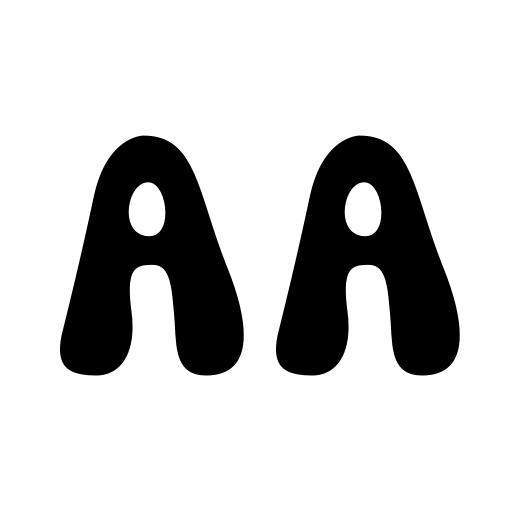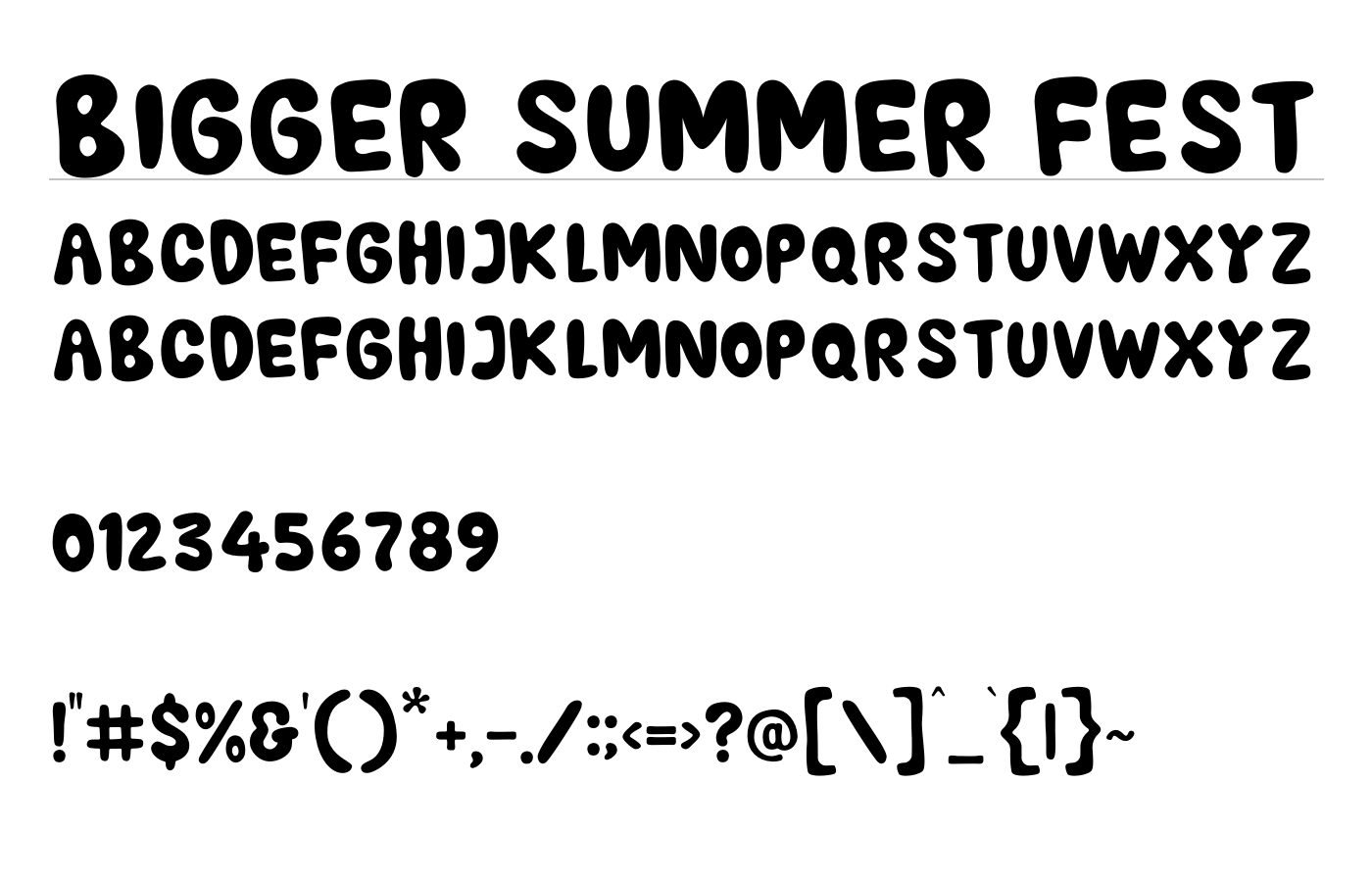
BIGGER SUMMER FEST is a playful, rounded sans serif font that brings a friendly and casual vibe with its bold, bubbly letterforms. Its consistent weight and smooth curves make it perfect for fun, eye-catching designs such as event posters, children’s content, and informal branding. This font's approachable style adds warmth and cheerfulness, making it ideal for summer festivals, party invitations, and any project that needs a lively, joyful touch.
BIGGER SUMMER FEST Font
About BIGGER SUMMER FEST Font